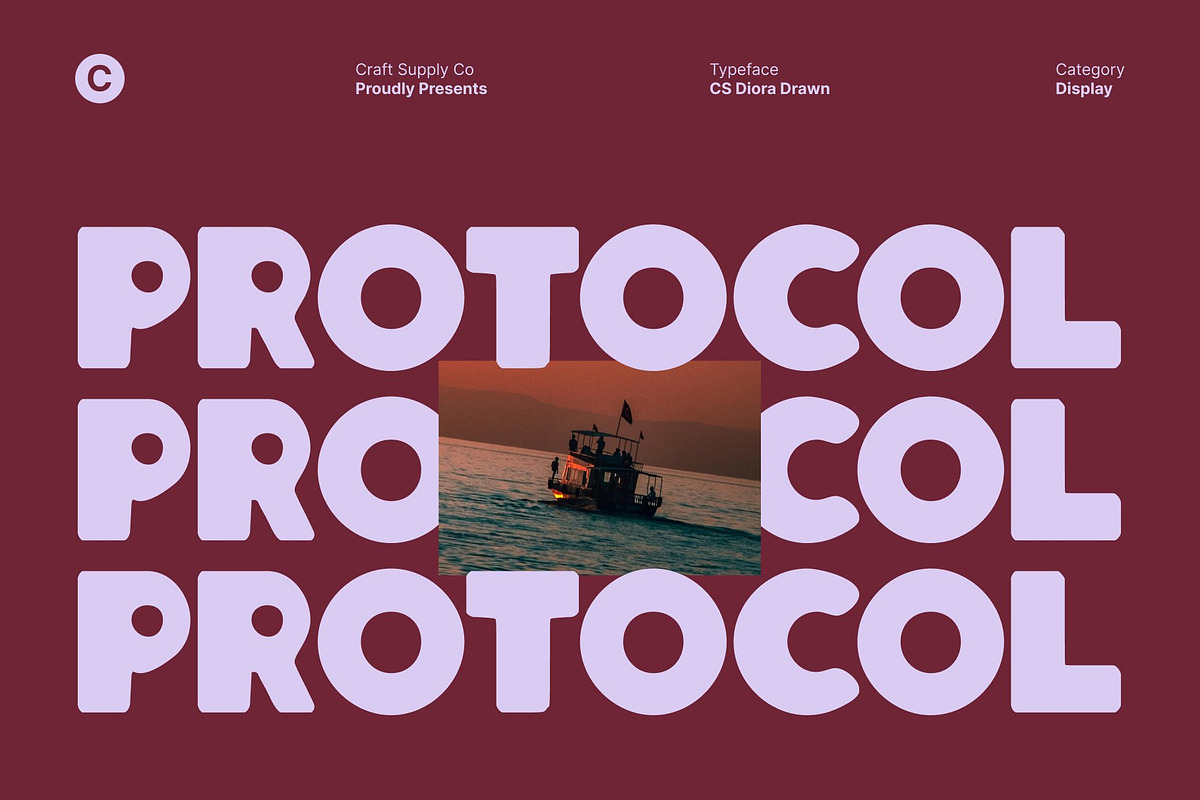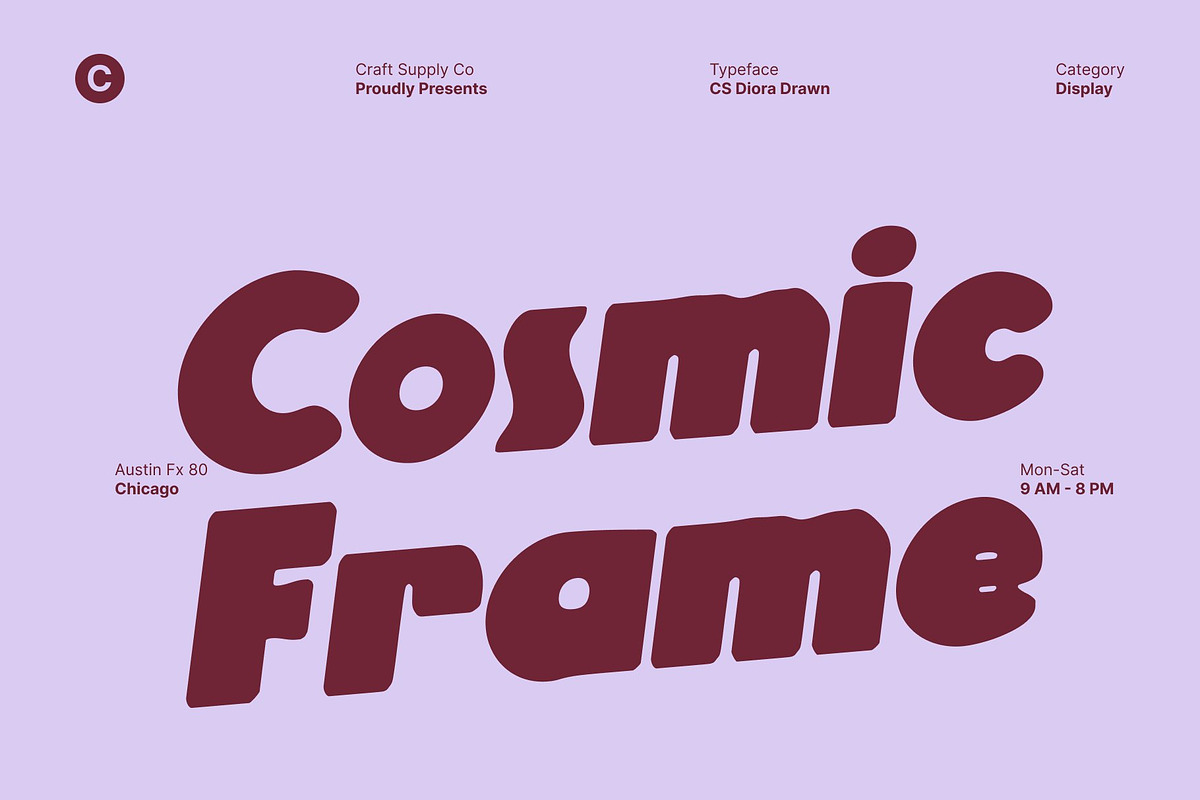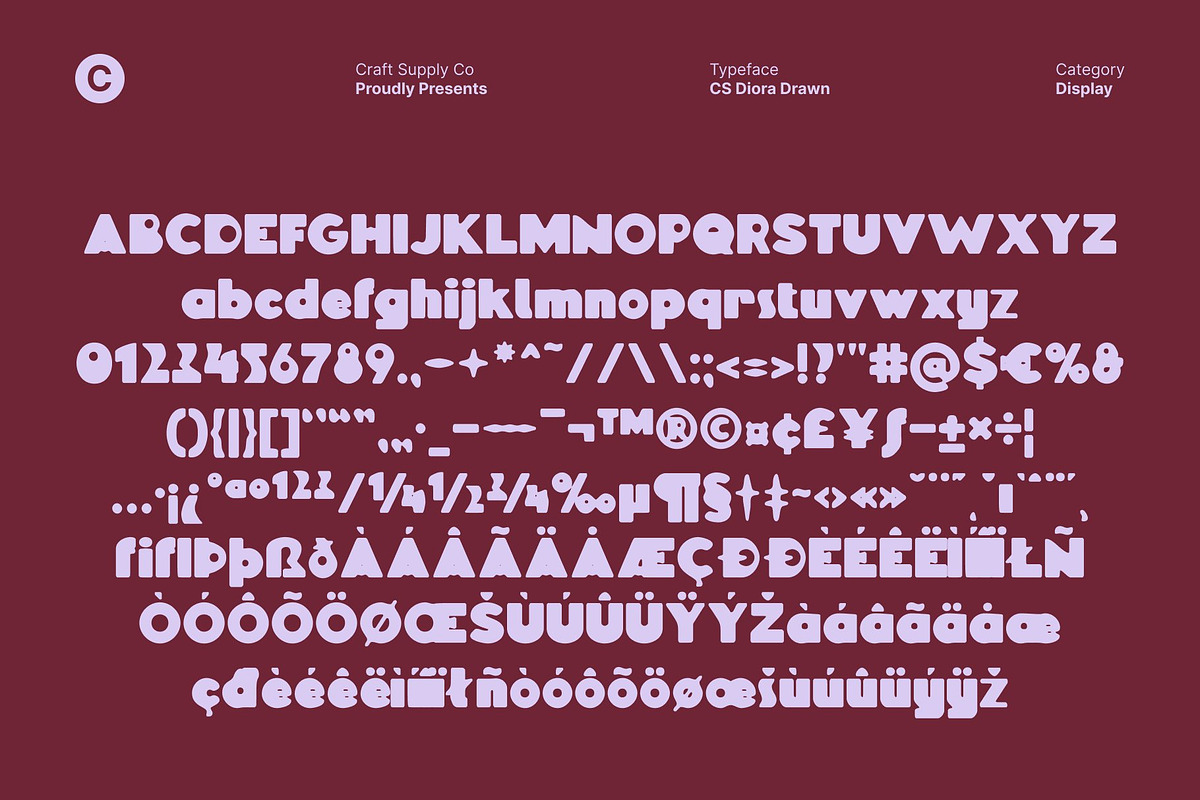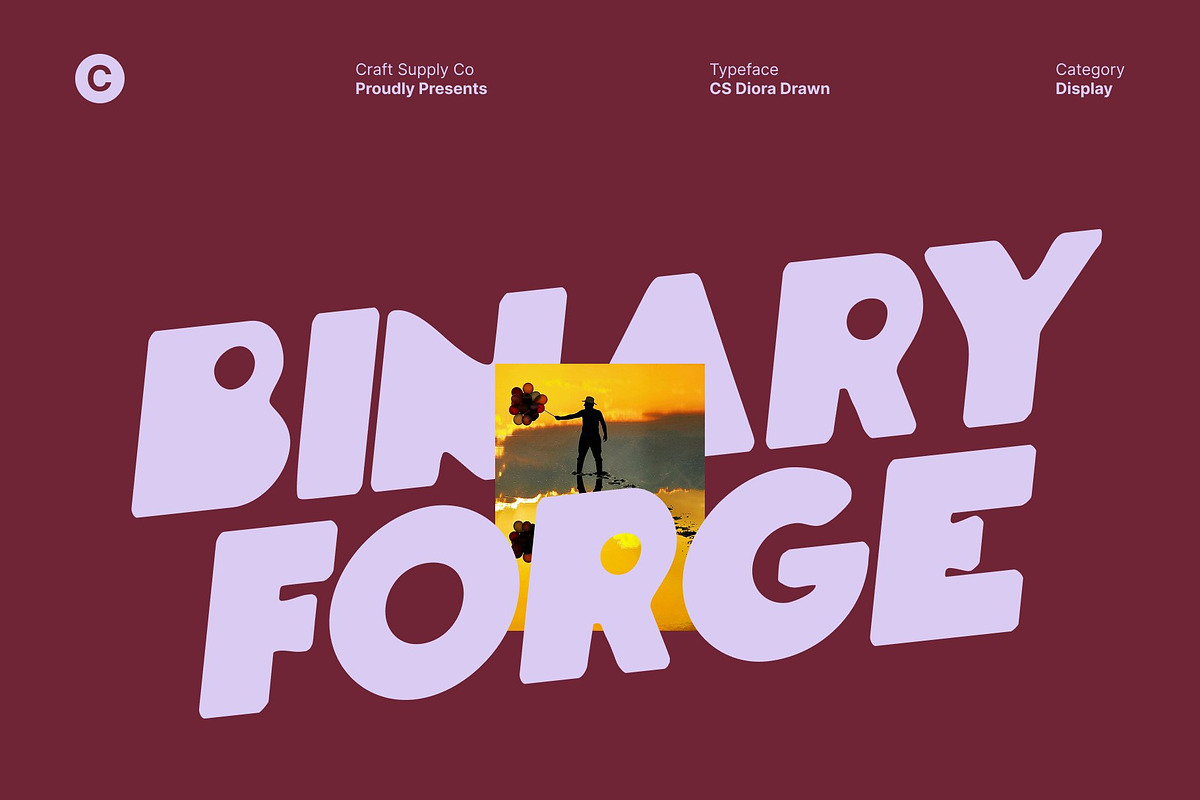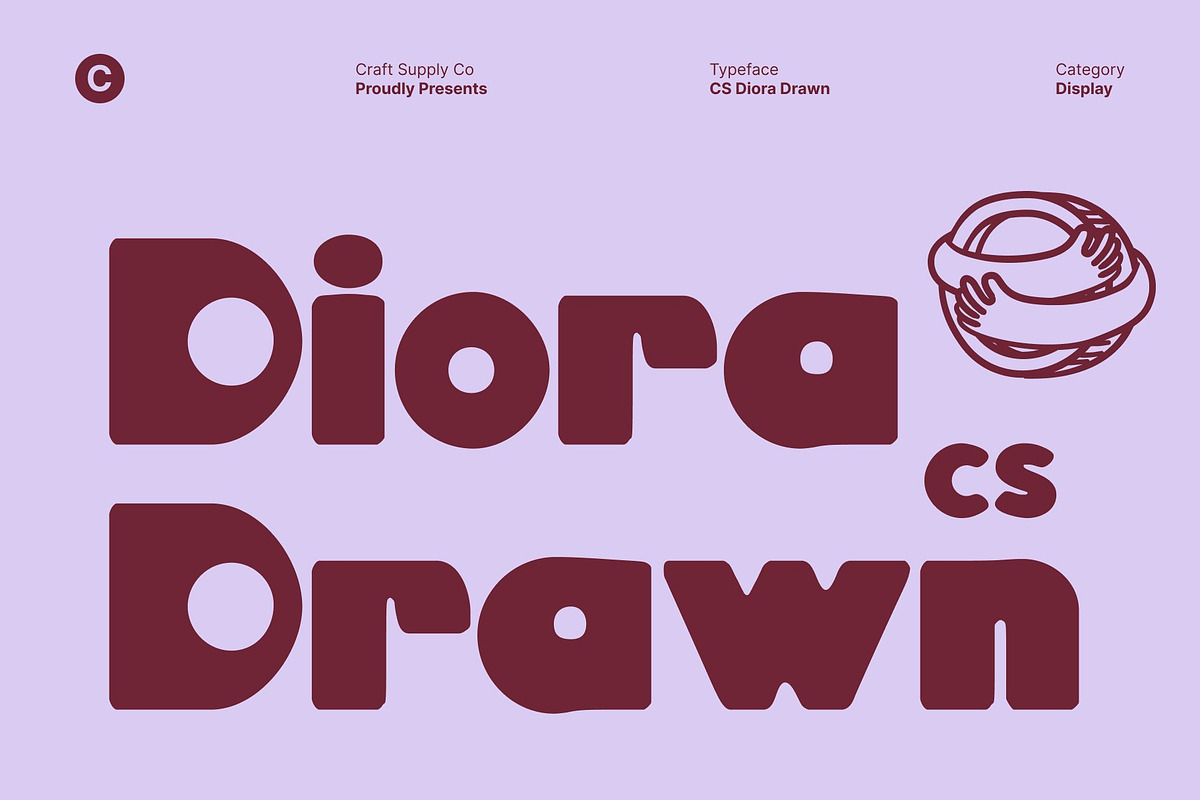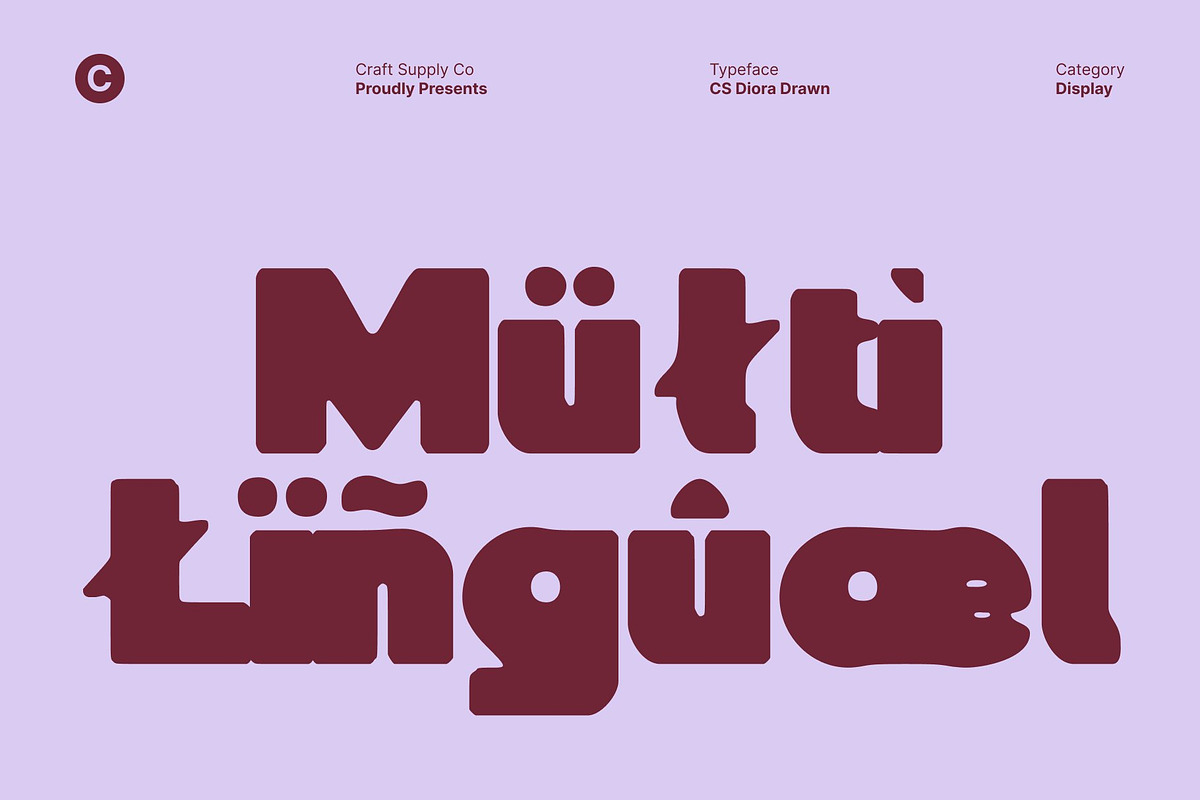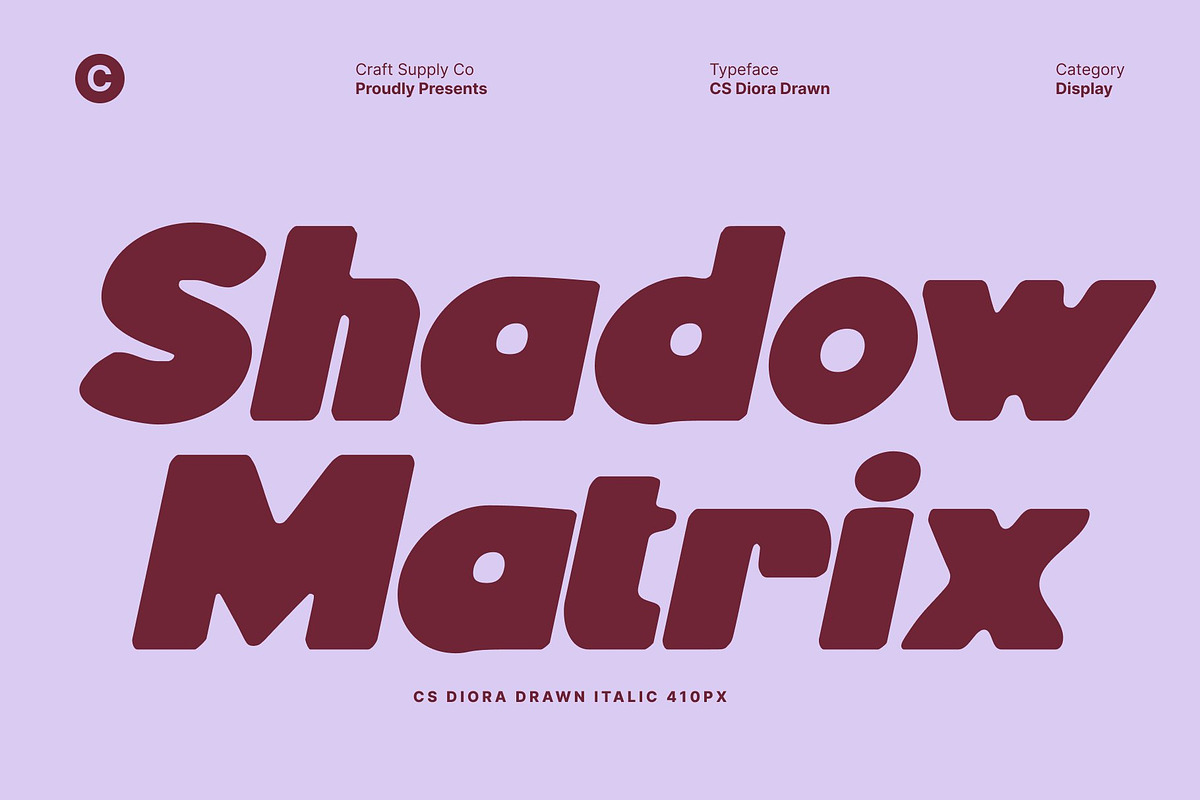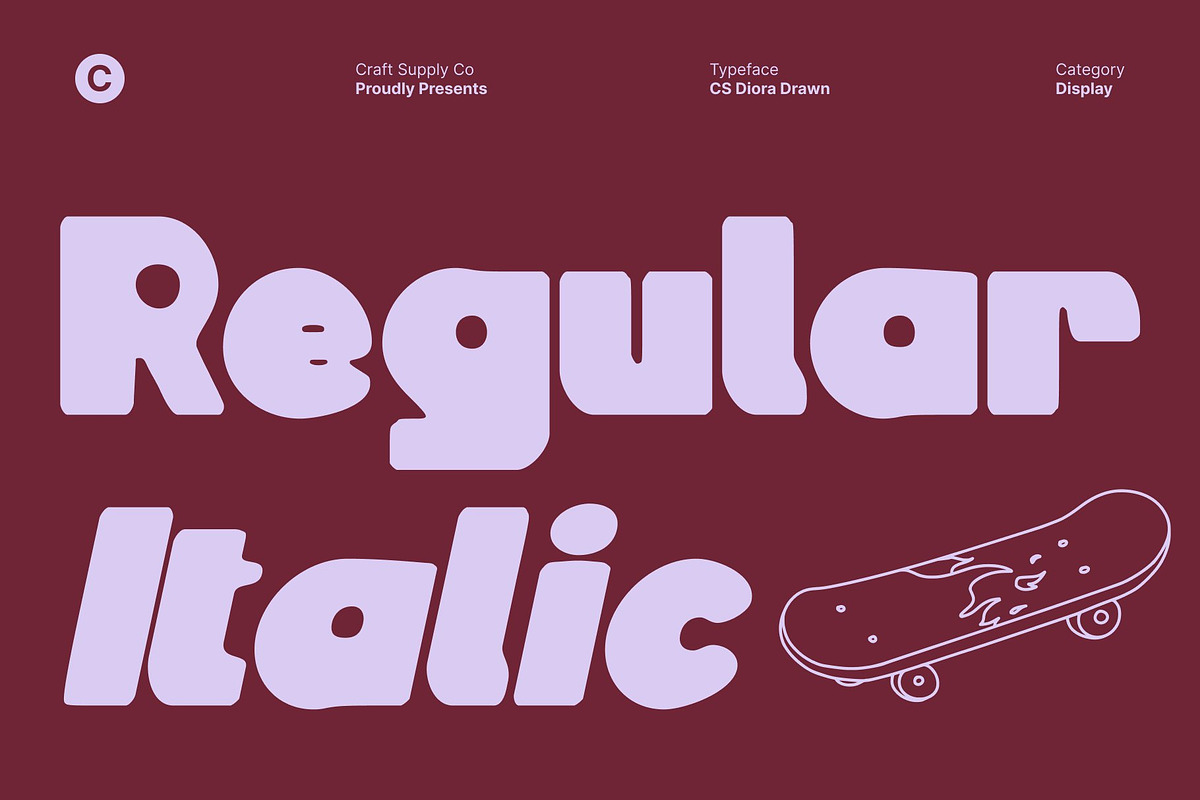
CS Diora Drawn
CS Diora Drawn – Bold Display Font with Fresh Geometric Style
Bold Geometry with Hand-Drawn Character This is a bold display font built on strong geometric foundations and distinctive letter constructions. Its confident, solid forms deliver instant visual impact, while the drawn texture adds an organic, handcrafted touch. This blend of structure and spontaneity creates typography that feels modern, expressive, and visually engaging.
Fresh, Cheerful, and Contemporary What truly defines this font is its upbeat and friendly personality. The playful geometry and creative shapes introduce a sense of joy and approachability, balanced by a clean, modern edge. The hand-drawn detail softens the bold structure, giving the font warmth and charm without losing its confident presence.
Perfect for Standout Titles and Branding Designed to shine at display sizes, this font excels in headlines, posters, logos, branding, and social media visuals. Its bold weight ensures excellent readability, while its unique character shapes help designs feel memorable and original. It’s an ideal choice for projects that want to feel lively, modern, and full of personality.
Modern Versatility with Expressive Style This font works effortlessly across both print and digital applications. Whether used for creative campaigns, contemporary branding, or playful editorial layouts, it brings fresh energy and distinctive style making every design feel bold, engaging, and confidently modern.